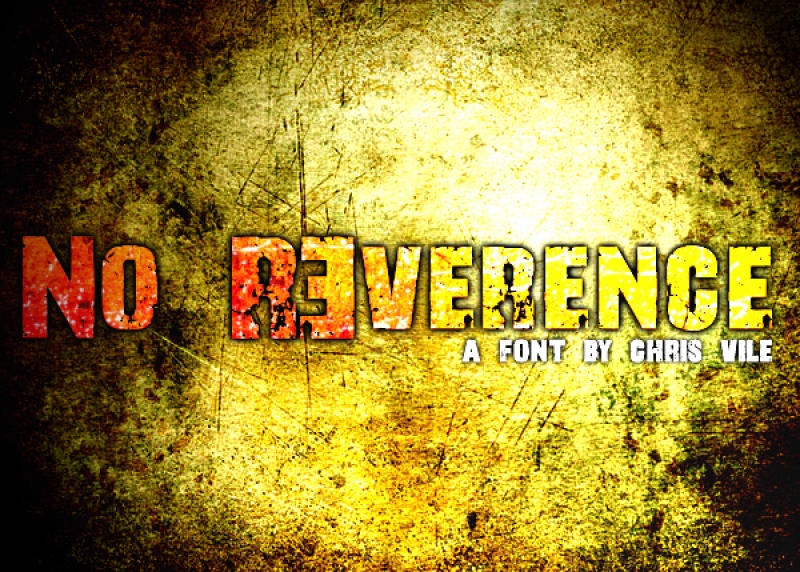
No R3verence Font is a heavy, thick, eroded font that is for demo use only. No commercial, monetized, media, or business use allowed without a font license. This font is an all uppercase font. No numbers, punctuation, or symbols are currently available. This font family includes: Eroded, Solid, Italic and Thin